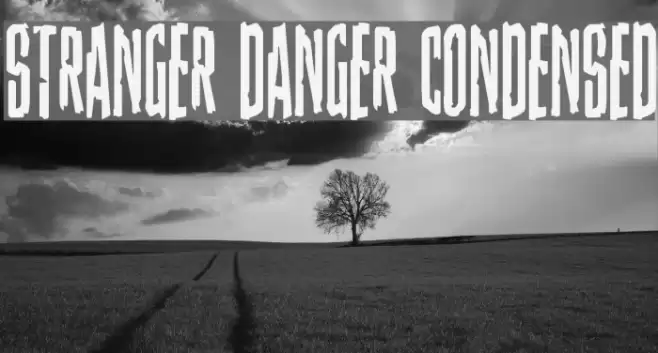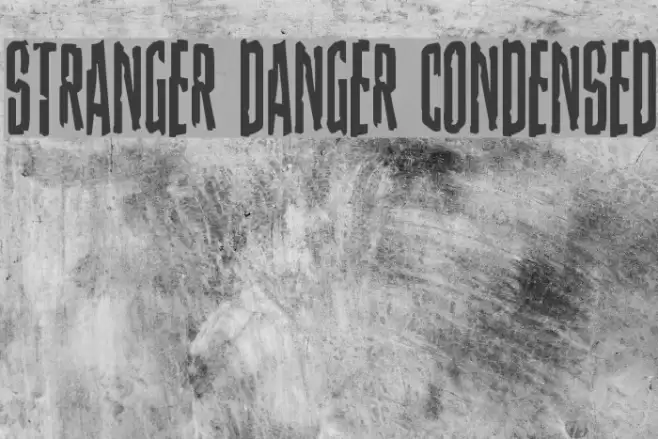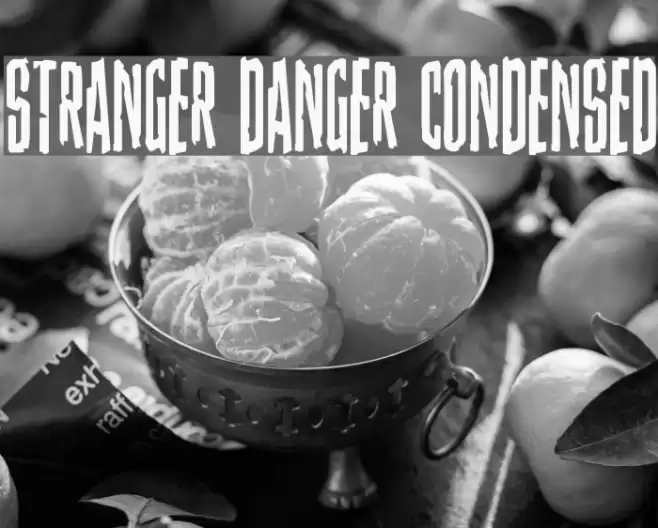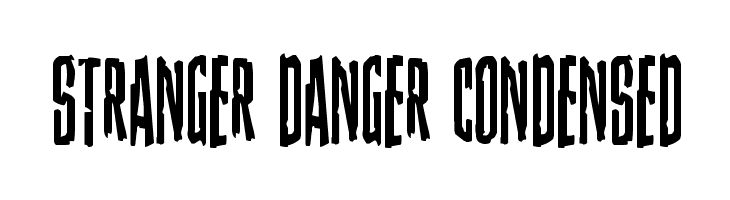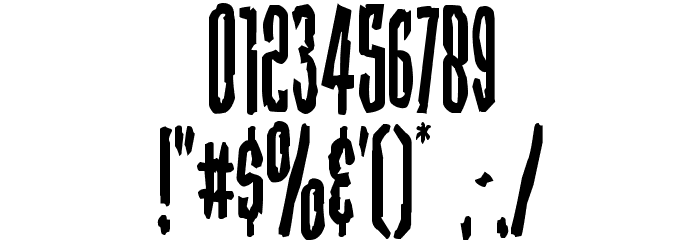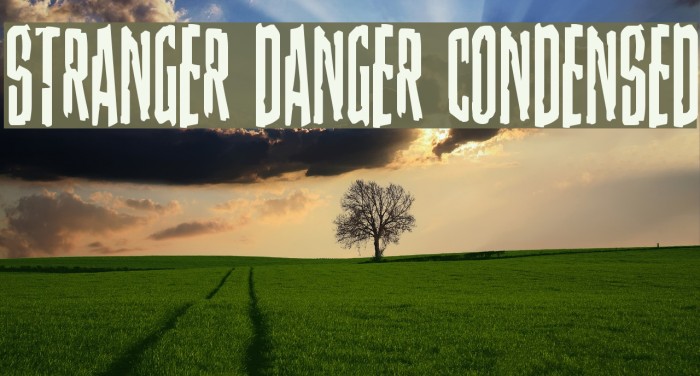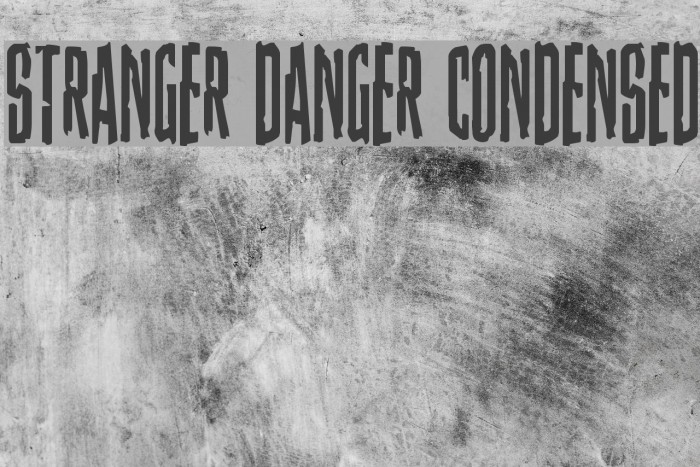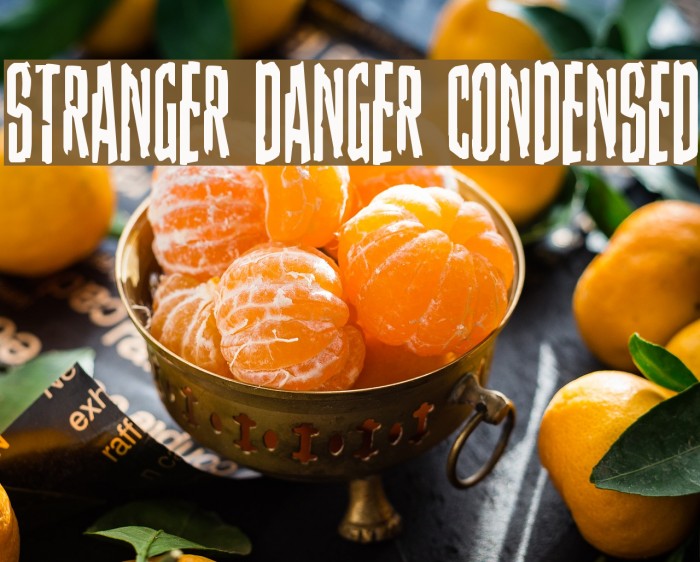
Stranger Danger Condensed Font
Stranger Danger Condensed Description
This font features a bold and condensed style with a distinctive, edgy appearance. The characters are tall and narrow, creating a striking visual impact. The uppercase and lowercase letters maintain a consistent height, contributing to a uniform look. The numbers and special characters are designed to match the overall aesthetic, with sharp angles and a slightly aggressive feel. This font's unique style makes it stand out, offering a modern and unconventional look that can capture attention in various design contexts.
A bold, condensed font with a sharp, edgy style from Uncategorized fonts.
- Proposed Projects: Ideal for posters, album covers, and branding projects that require a bold, attention-grabbing typeface.
- Character Spacing: Tight